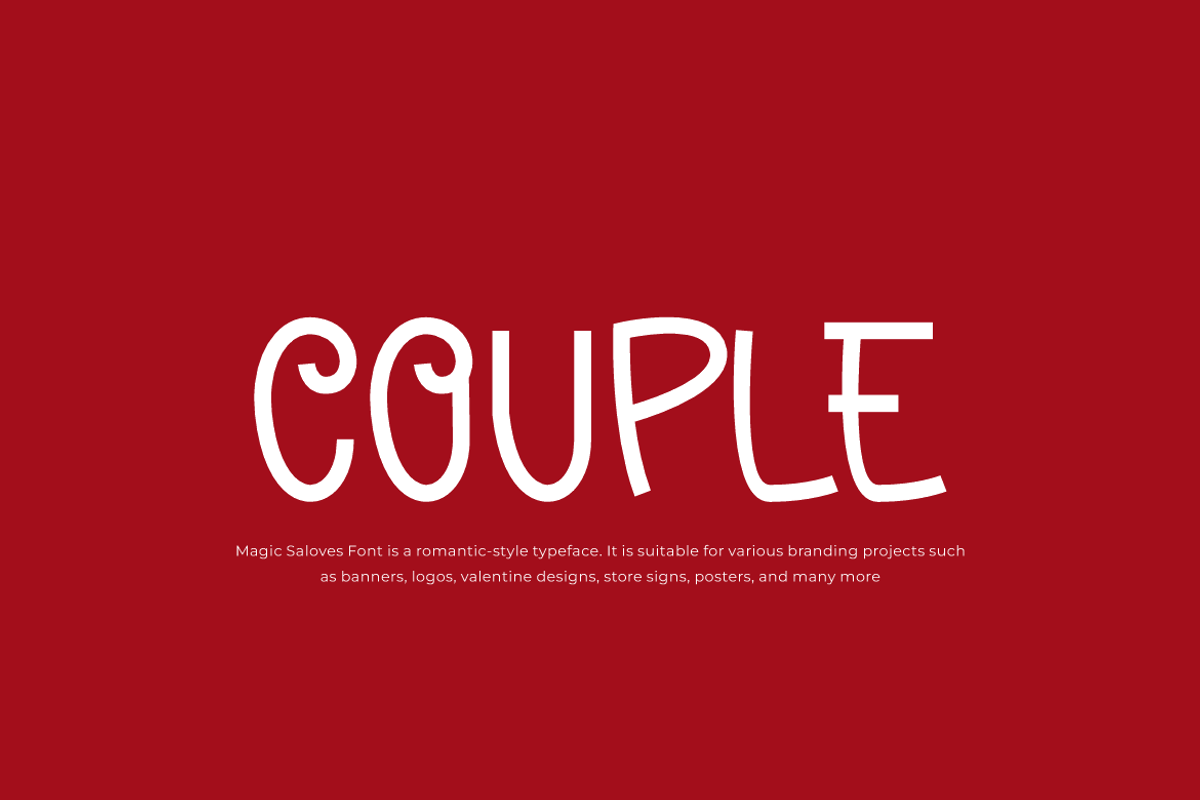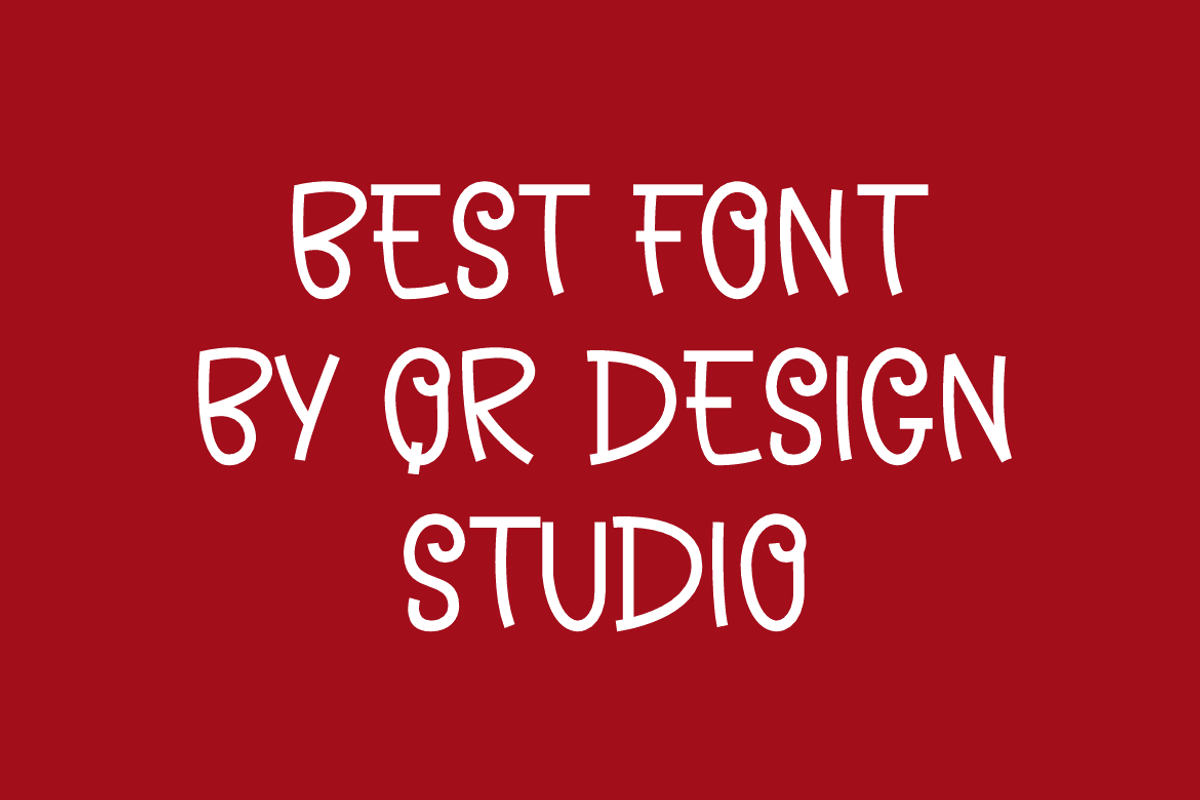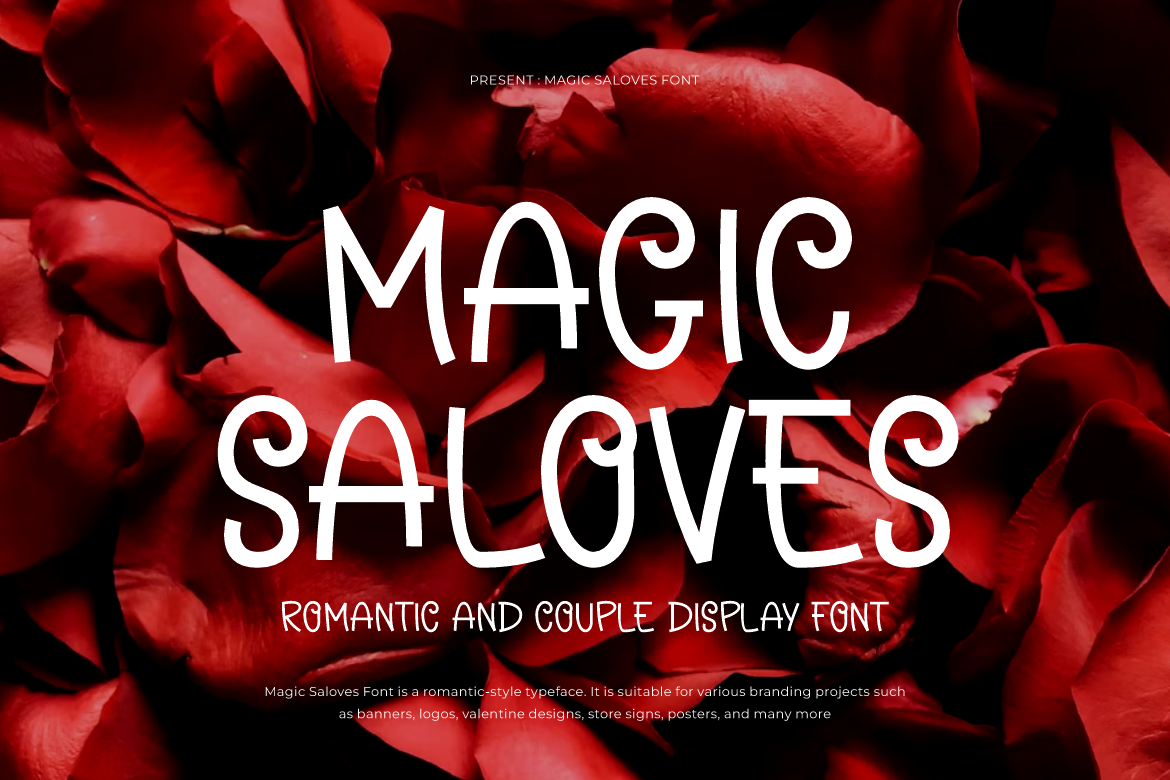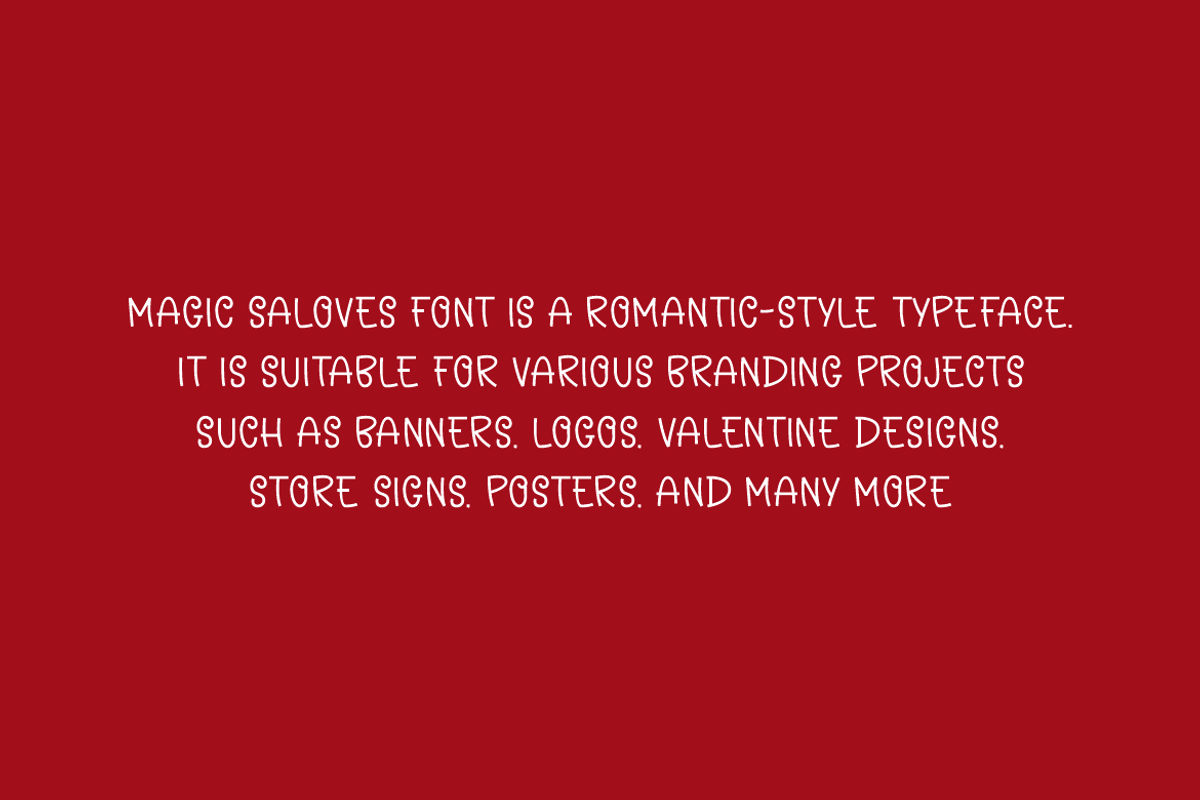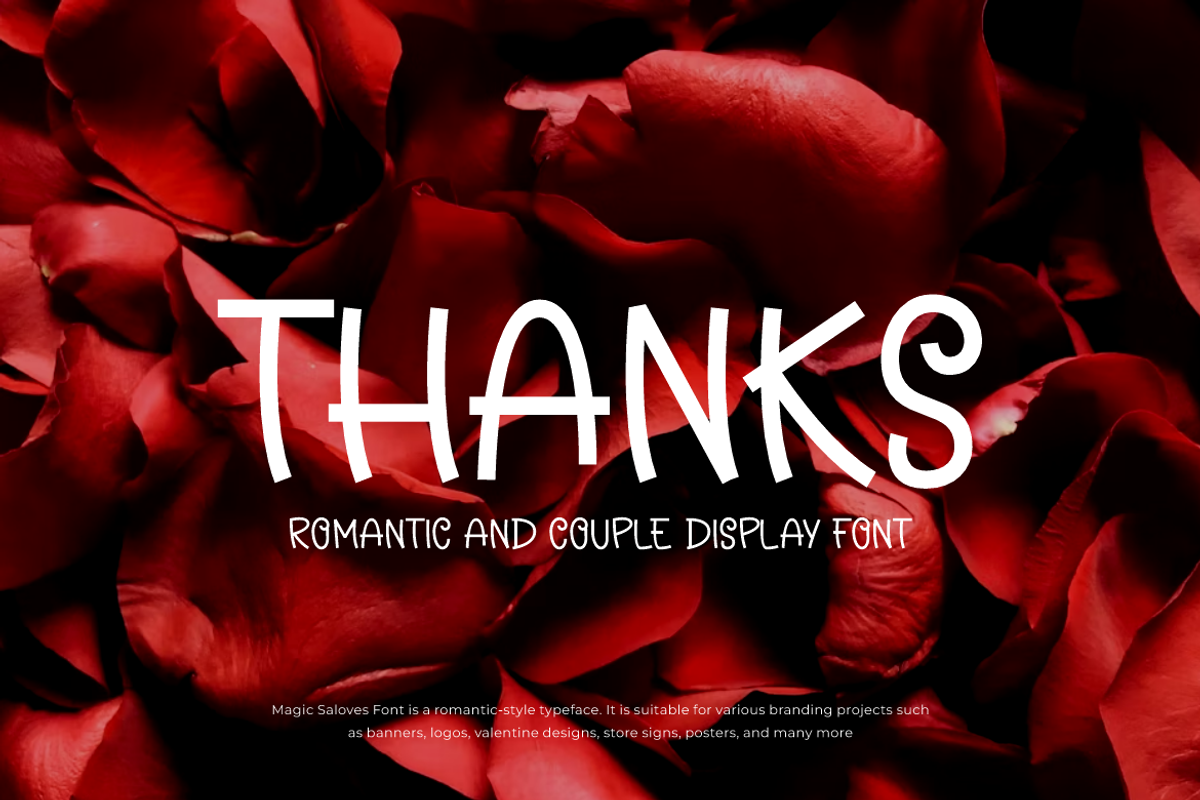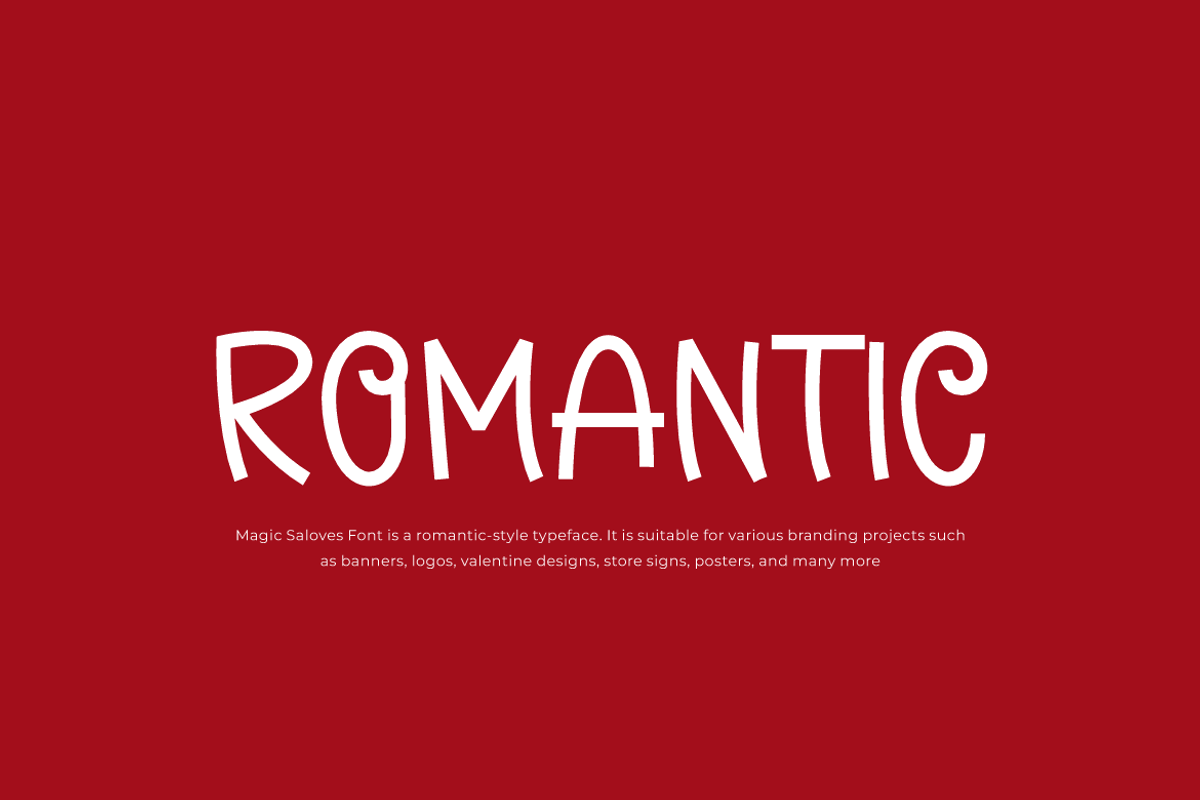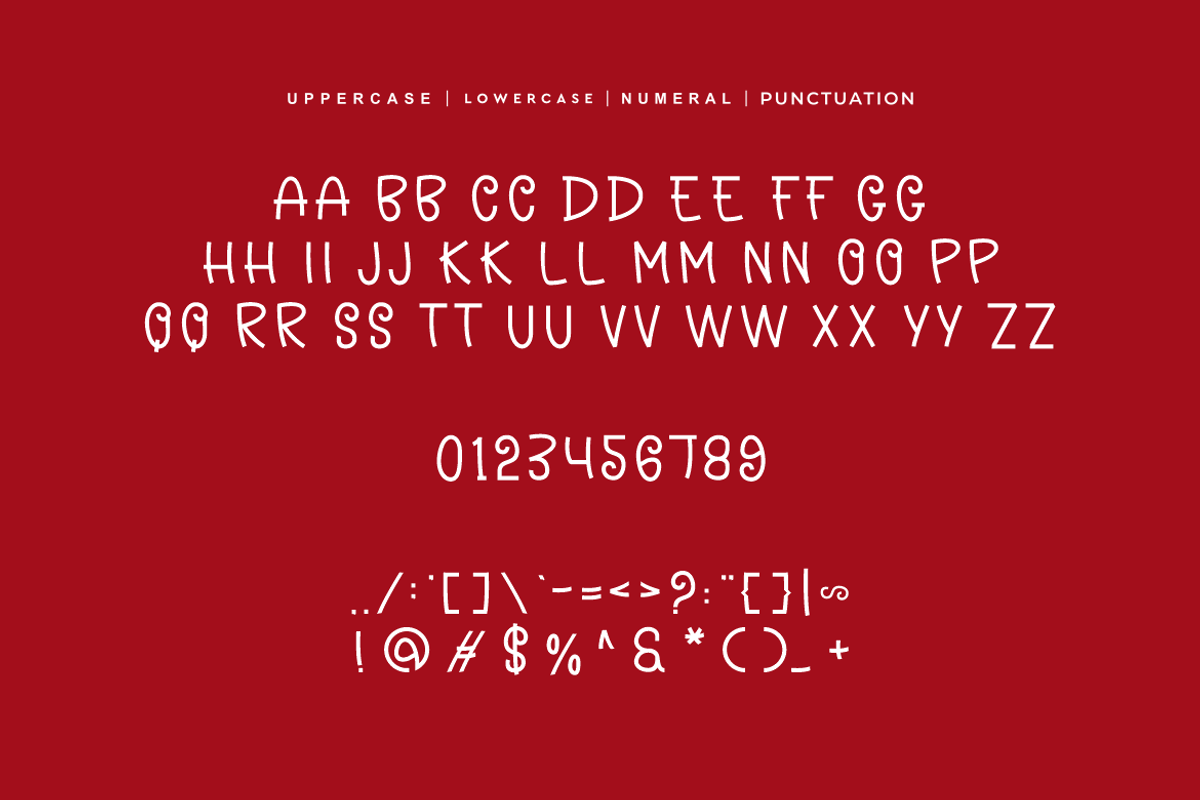
Magic Saloves - Romantic Font
Magic Saloves Font is a modern and authentic display typeface. It’s perfect for various branding projects such as logos, valentine designs, and more. This font stands out beautifully in a wide range of contexts.